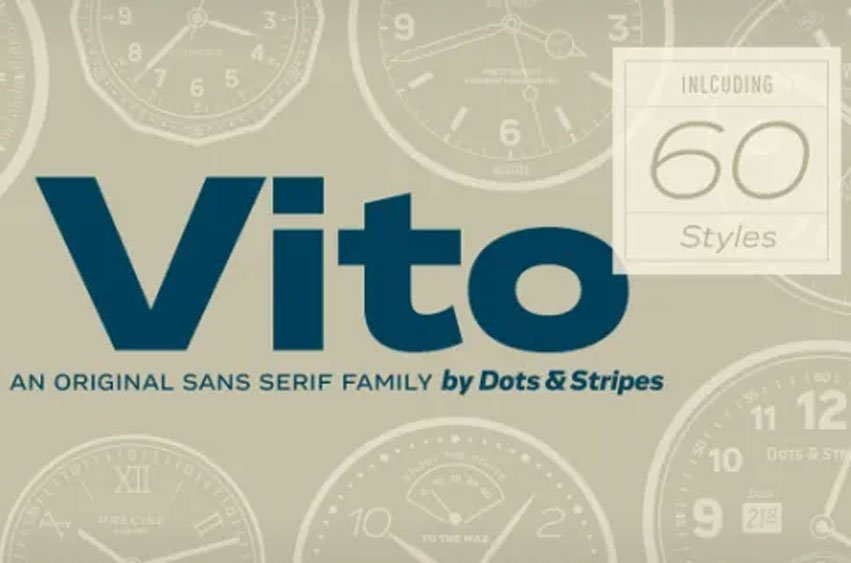
Vito Font Family is a strong and elegant sans serif family in 60 styles. A wide range of weights and widths offering tremendous typographic flexibility. Perfect to mix in magazines or packaging, corporate designs or movie titles. Masculine and sporty for adrenaline junkies, reliable and elegant for serious typographers, but with a touch of bling for high snobiety. Vito was selected as one of Typographica’s favorite typefaces of 2015.
The Vito Family sets its goal to stay very functional but with a strong and unique look. Neutrality is good, but sometimes you need a bit more edge. The extreme weights and widths work great in title sizes, while the normal weights make longer texts deliciously readable.
The classic and elegant outlook in all sizes make the family suitable for everything high quality. While the family looks great on the outside, it is even greater on the inside. Loads of OpenType-Features, a big amount of language support, and the flexibility of alternative letters, make working with Vito easy and exciting. And the big range of widths invite you to mix all together, and find new ways to express your designs. We would love to see, what you come up with!